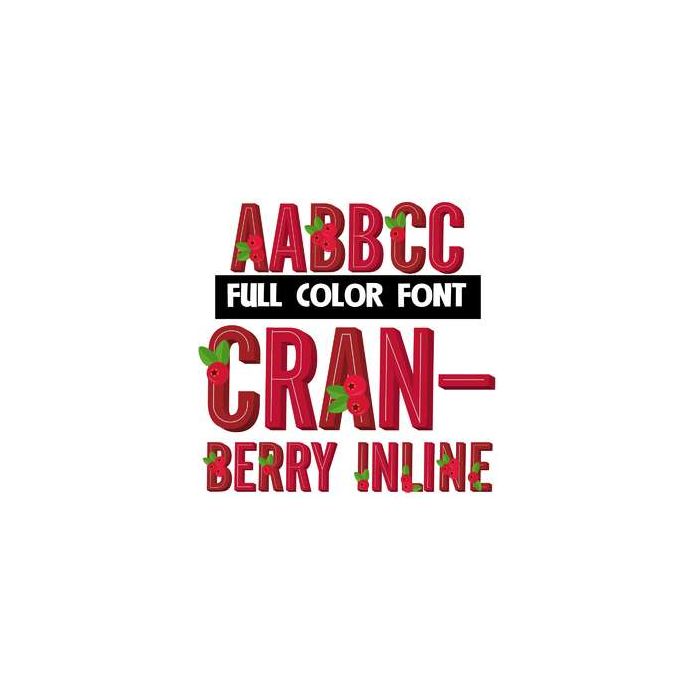
This full-color font features two colors of red lettering and cranberry clusters on the uppercase. This font works best for titles, displays, posters and more. Please note color fonts will show as black in non compatible programs. This font type is compatible with Silhouette Studio.